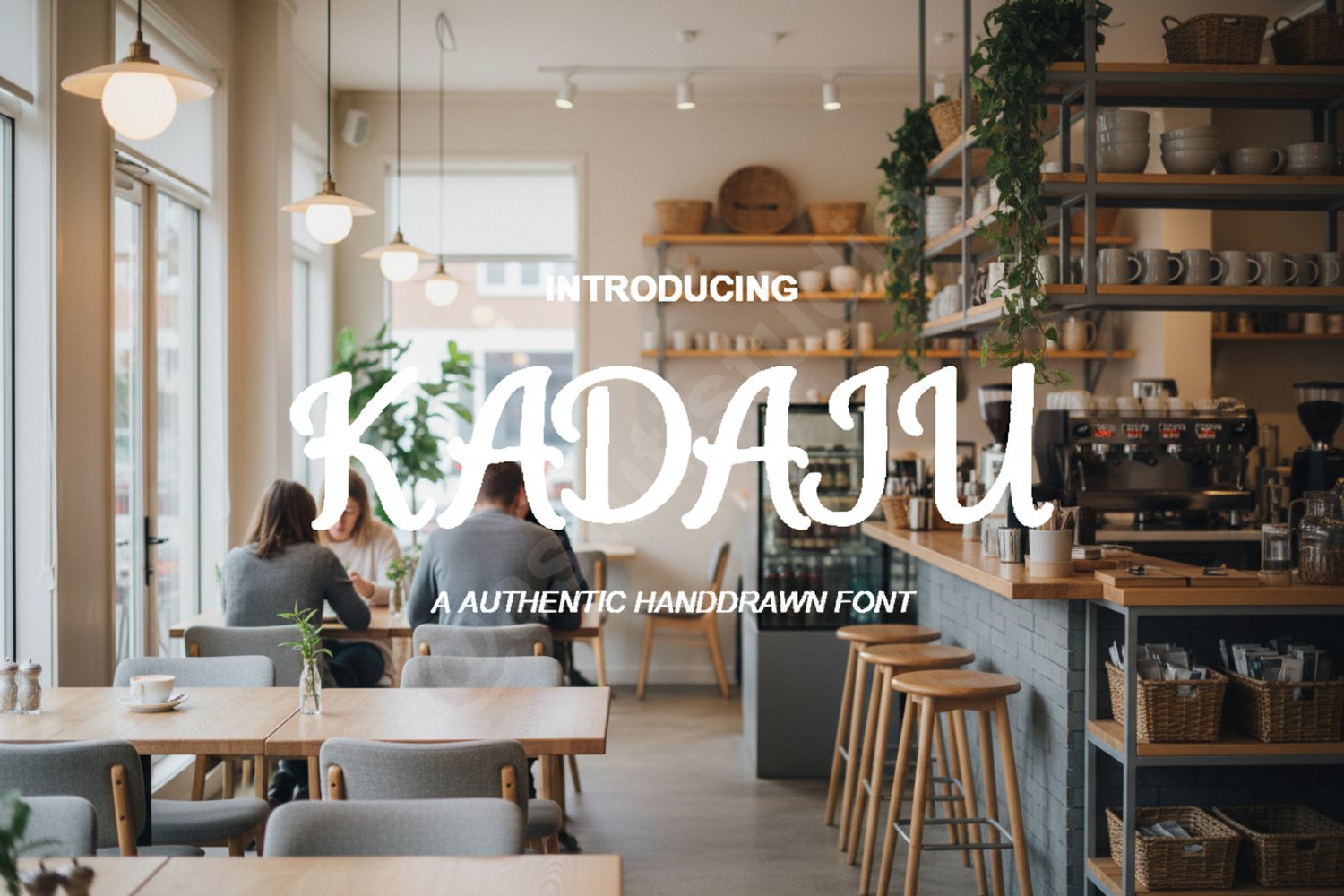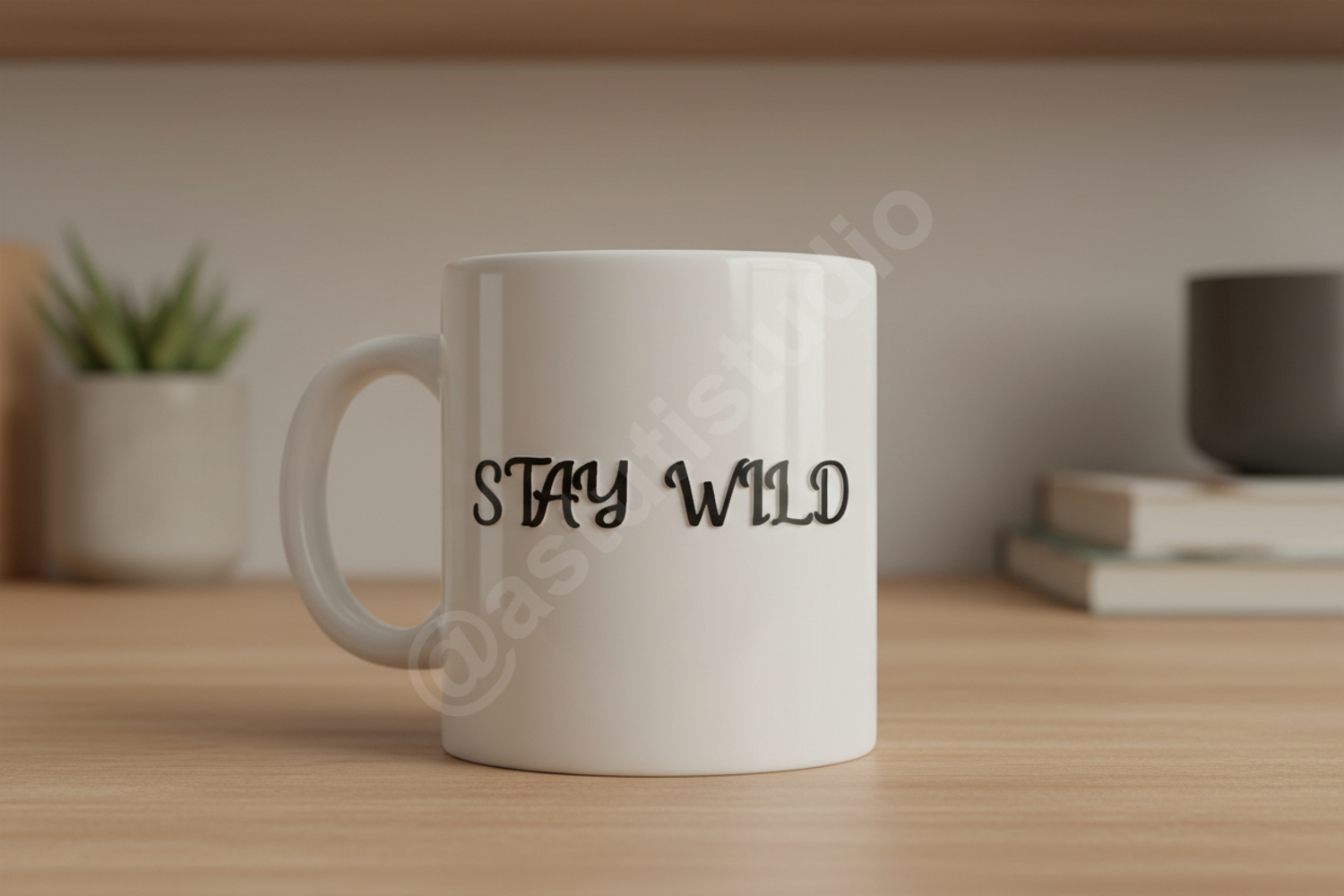
Kadaju | Modern Bold Serif Typeface
Kadaju
Kadaju is a premium modern serif font that strikes the perfect balance between timeless elegance and contemporary bold design. Crafted with meticulous attention to detail, Kadaju features high-contrast strokes and clean lines that ensure your message stands out with a touch of luxury and sophistication. Whether you are working on a high-end fashion brand or a minimalist editorial layout, Kadaju provides the versatility and professional edge your design deserves.
- Branding and Identity: Create memorable logos and cohesive brand systems.
- Editorial Design: Perfect for magazine headings, pull quotes, and book covers.
- Wedding Stationery: Add a sophisticated touch to invitations and save-the-date cards.
- Social Media: Elevate your digital presence with high-impact typography.
- Packaging: Ideal for luxury product labels and premium retail packaging.